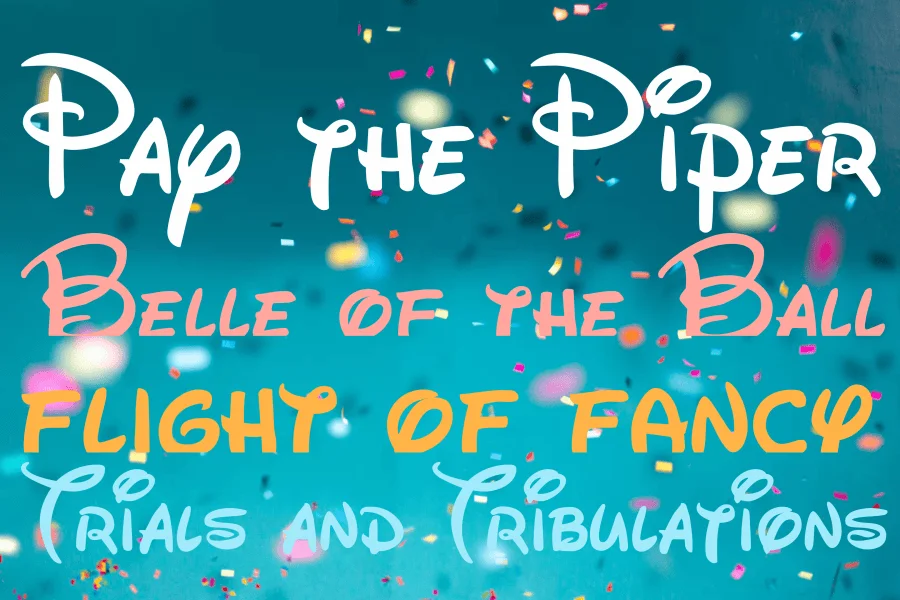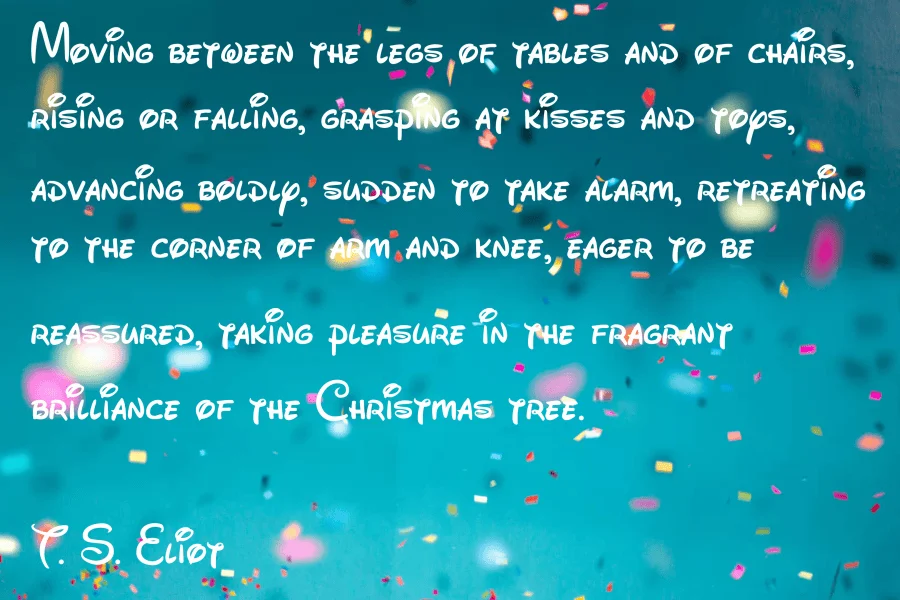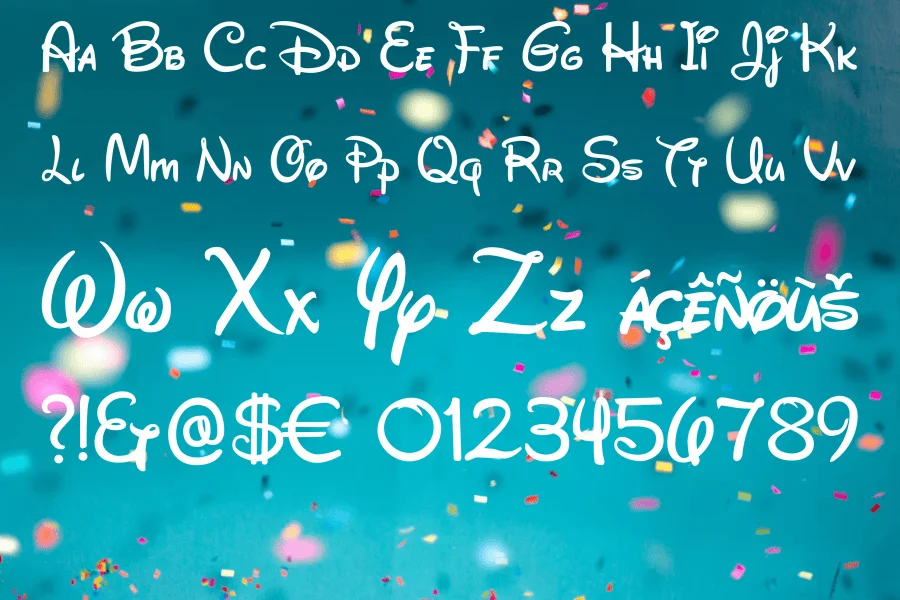
Drawing inspiration from various Disney logos, signage, and hand-titled artwork, WALTOGRAPH is an original font that attempts to capture the spirit of the familiar Walt Disney logotype.
Updates in version 4.2 include a new title (formerly Walt Disney Script), new license, some new ligatures and alternates (see included text file), plus the introduction of a separate unicase font, WALTOGRAPH UI, which is designed for increased legibility at small sizes and on computer screens.